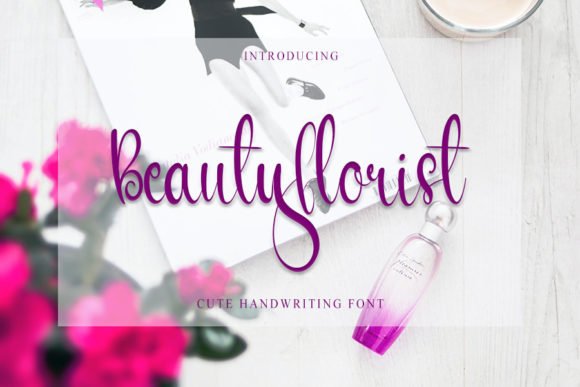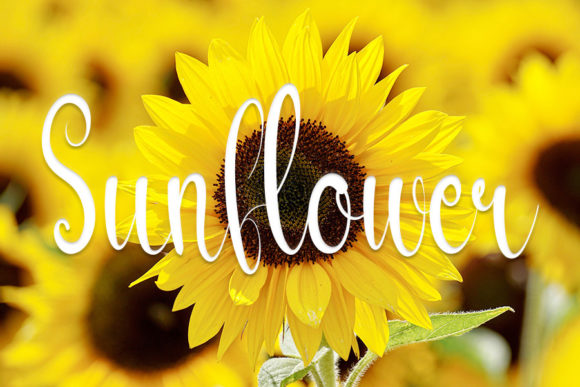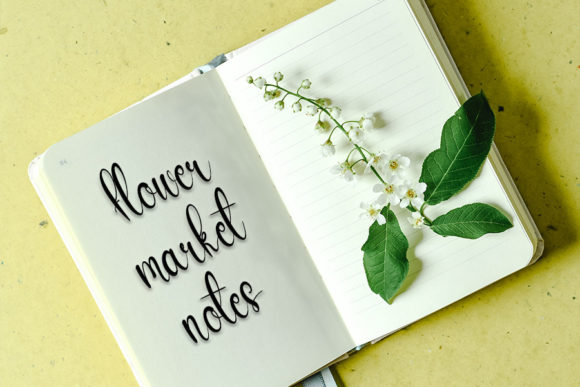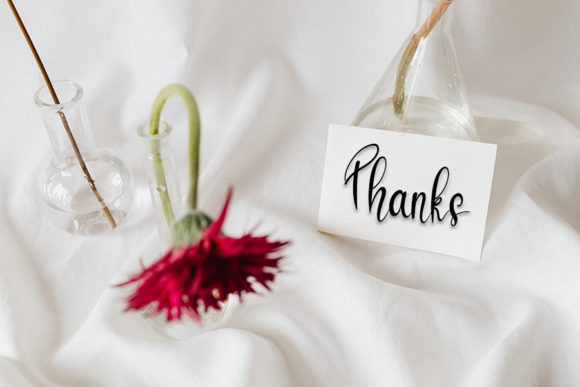
Unleash the Beauty in Your Designs
There’s nothing quite like the thrill of bringing a creative idea to life. You’re brainstorming, sketching, and experimenting with different fonts until suddenly, it clicks – your design is born. For many designers, the search for the perfect font is a crucial part of this process. This is where the Beauty Florist Font comes in, a playful and smart-looking handwritten font that’s sure to elevate your designs to the next level.
Whether you’re creating a logo, branding, or a simple quote, Beauty Florist Font is the perfect choice. With its unique and beautiful touch, every letter comes alive, adding a personal and whimsical feel to your design. As a designer, you know how valuable it is to have the right tools at your disposal – and Beauty Florist Font is certainly one of them.
Beauty Florist Font Key Features
- Unique Characteristics: Beauty Florist Font features elegant, cursive script with a touch of whimsy, making it perfect for creating beautiful and eye-catching designs.
- Font Style: The font comes in a single style, which is perfect for creating a consistent and professional look in designs.
Beauty Florist Font Review
At first glance, I thought Beauty Florist Font was going to be just another run-of-the-mill floral script font. But, after diving in, I discovered some unique features that make it stand out.
- ✨ Unique flair: The font has a distinct flair at the end of each letter, which gives it a whimsical touch.
- ✨ High-quality design: The font is well-crafted and looks great on both digital and print materials.
- ✨ Wide language support: Beauty Florist Font supports a wide range of languages, making it suitable for various projects.
- ⚠️ Limited flexibility: The font’s design can be a bit too ornate for some projects, limiting its versatility.
- ⚠️ Not ideal for small text: Due to its decorative nature, the font can become difficult to read when used in small text sizes.
Overall, I think Beauty Florist Font is a solid choice for projects that require a touch of elegance and sophistication. While it may not be perfect for every project, its unique design and high-quality construction make it a valuable addition to any designer’s toolkit.
Beauty Florist Font: A Practical Application Guide
Use the Beauty Florist Font for designs related to flowers, gardens, or nature. Experiment with different font sizes and colors to create visually appealing combinations. You can also pair it with other fonts to create a unique look.
The Beauty Florist Font is perfect for:
- Flower shop branding and marketing materials
- Outdoor and garden-themed designs
- Photography captions and quotes
Alternatives to Beauty Florist Font
Great Vibes Font is a beautiful, elegant script font that is perfect for creating invitations, wedding cards, and other special occasions. It has a similar flowing feel to Beauty Florist Font but with a more classic and sophisticated touch.
Comparison: Great Vibes Font is more versatile and can be used for a wider range of designs, whereas Beauty Florist Font is more focused on floral and botanical themes.
Carolyna Pro Font is a modern, elegant script font that is ideal for luxury brands, high-end fashion, and fine dining. It has a similar level of sophistication to Beauty Florist Font but with a more contemporary and edgy feel.
Comparison: Carolyna Pro Font is more suitable for modern and sleek designs, whereas Beauty Florist Font is more suited for classic and traditional designs.
Alex Brush Font is a beautiful, handwritten script font that is perfect for creating invitations, quotes, and other creative projects. It has a similar level of elegance and sophistication to Beauty Florist Font but with a more personal and handwritten feel.